Ein Tag der Typografie
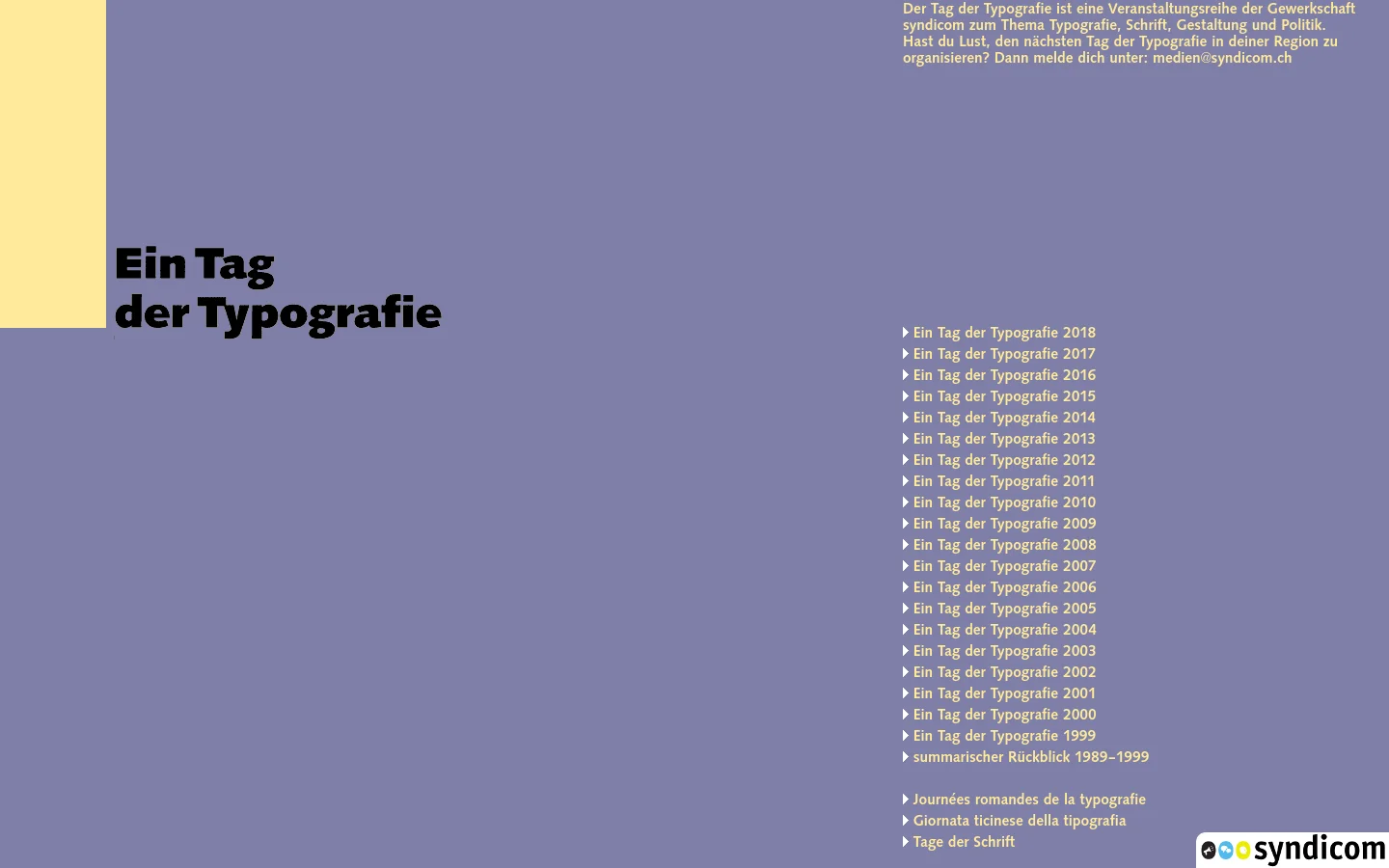
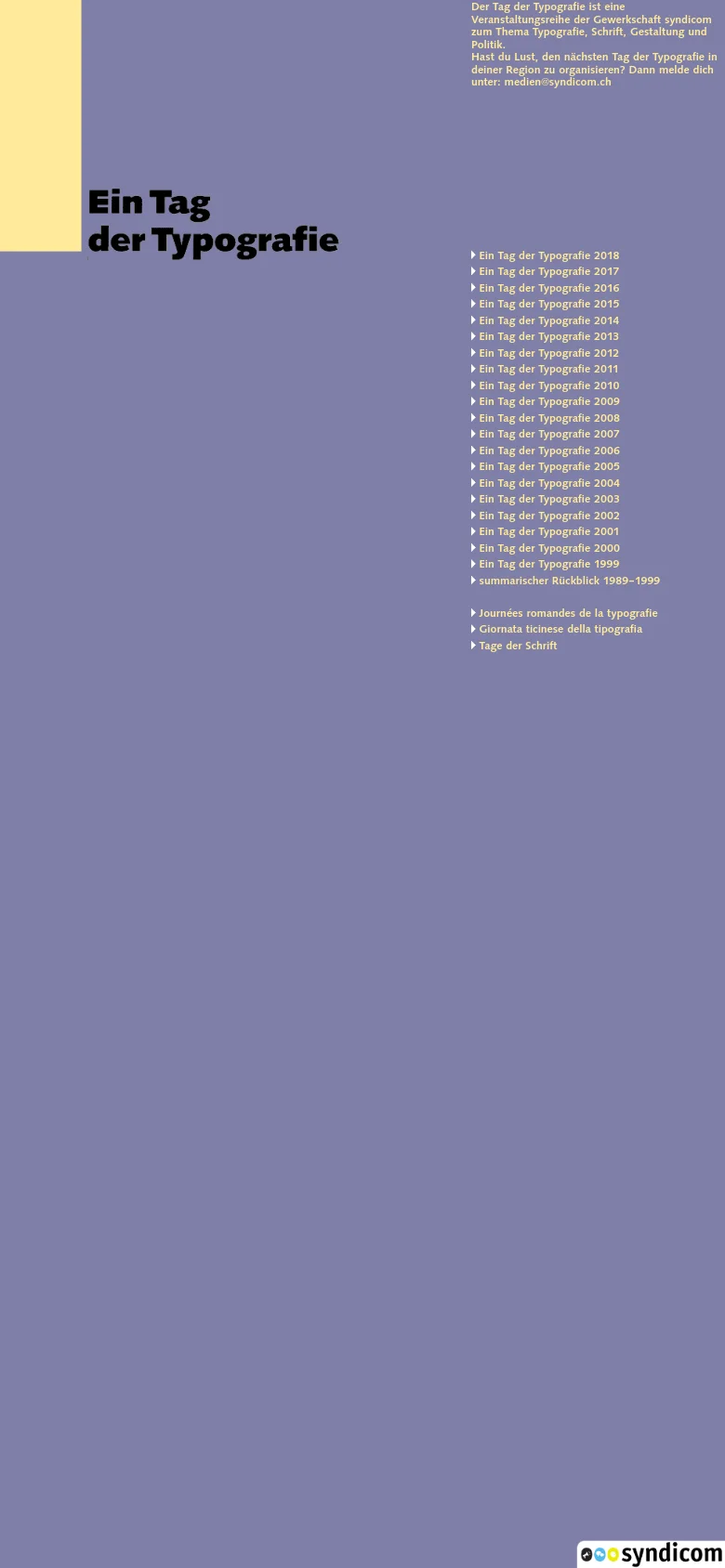
Ein Tag der Typografie serves as a digital archive and landing page for a long-running event series organized by the syndicom union. The site functions as a historical repository, documenting decades of discussions surrounding typography, design, and politics. Its primary purpose is to provide access to past event iterations and invite new organizers to continue the tradition. The visual identity is unapologetically typographic and experimental, leaning heavily into a Swiss-inspired, neo-brutalist aesthetic. By utilizing massive, high-contrast sans-serif typefaces and a bold, non-traditional color palette of muted lavender, pale yellow, and deep charcoal, the site communicates its subject matter through its very structure. The layout is stripped of unnecessary ornamentation, targeting a design-literate audience of typographers, graphic designers, and cultural activists who value form and historical continuity.